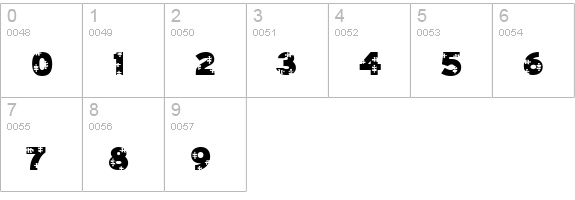
Jigsaw Trouserdrop Font Details
Introducing Jigsaw Trouserdrop font, a whimsical and playful typeface that is sure to make your design projects stand out! This unique font features decorative jigsaw puzzle pieces intertwined with quirky drop shapes, giving it a fun and eye-catching appearance. Jigsaw Trouserdrop is perfect for adding a touch of creativity and personality to your posters, invitations, logos, and more. The best part is that Jigsaw Trouserdrop font is completely free to download at FontsMarket.com! Don't miss out on this fantastic opportunity to enhance your designs with this one-of-a-kind font. Download Jigsaw Trouserdrop today and let your creativity run wild!